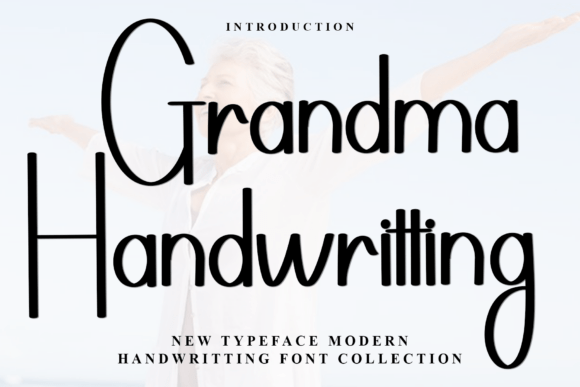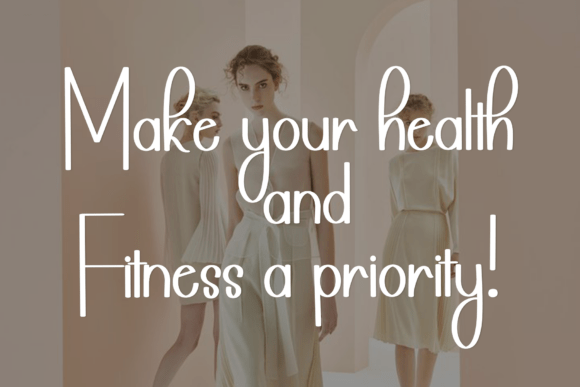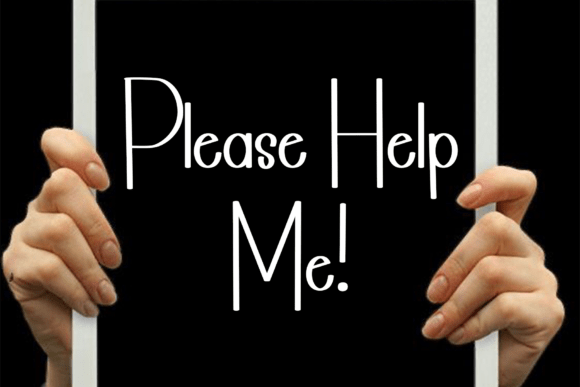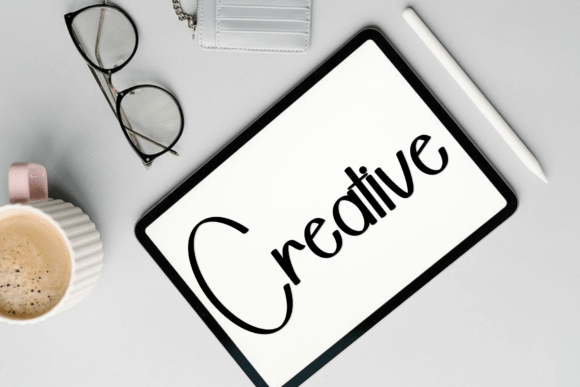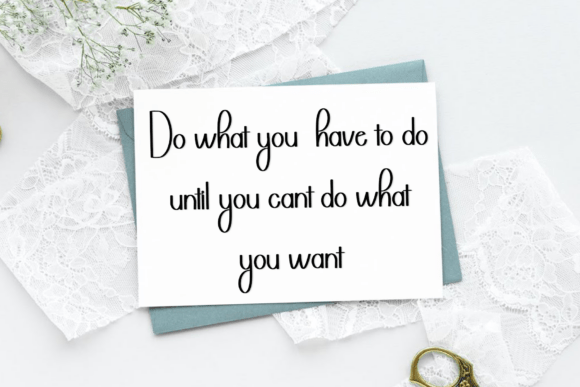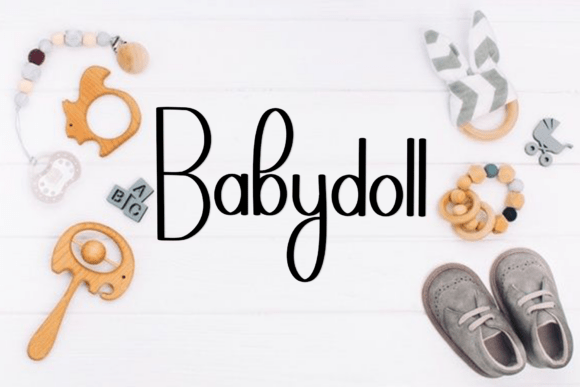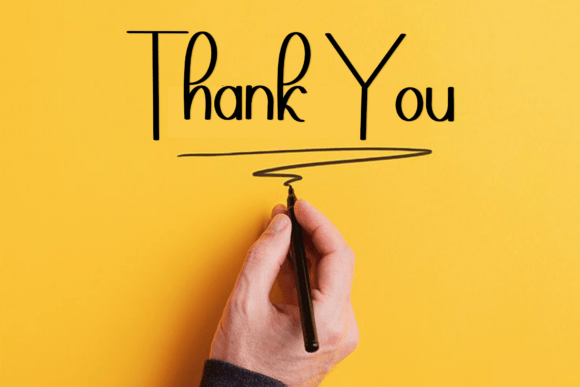
Creating with Love: The Magic of Grandma Handwritting Font
Remember the feel of scribbling in a journal, the sound of a pen gliding across paper, and the joy of creating something personal? For many of us, those moments evoke a sense of nostalgia and warmth. It’s this same feeling that inspired the creation of Grandma Handwritting Font, a charming script font designed to evoke a sense of authenticity and handmade charm.
This beautiful font is perfect for designers looking to add a touch of warmth and personality to their projects. With its flowing strokes and stylistic variation, Grandma Handwritting Font is ideal for crafting stationery, personalized products, and design projects that require a sentimental and approachable quality. Whether you’re working on a digital or print project, this natural, expressive typeface is sure to captivate your audience.
Grandma Handwriting Font Key Features
- Unique Handwritten Style: The font features a distinctive, cursive handwriting style reminiscent of a grandmother’s handwriting, perfect for adding a personal touch to designs.
- Character Set: The font includes a comprehensive set of characters, including uppercase and lowercase letters, numbers, and punctuation marks, as well as a range of ligatures and swashes.
- Weight and Style: The font is available in three weights: Light, Regular, and Bold, each with its own unique characteristics and flair.
- Multi-Language Support: The font supports a wide range of languages, including English, Spanish, French, German, Italian, and many others, making it a versatile choice for designers and typographers.
Grandma Handwritting Font Review
When I first saw the Grandma Handwritting Font, I was immediately charmed by its unique and whimsical feel. ✨ The font’s handwritten style, reminiscent of a grandmother’s love letter, adds a personal touch to any design project. It’s perfect for creating a warm and inviting atmosphere.
The font’s versatility is another aspect that works well in its favor. ✨ It can be used for a wide range of applications, from greeting cards to wedding invitations, and even for branding purposes. The font’s variations in letterforms and strokes give it a dynamic feel that makes it suitable for various design styles.
However, I do have a few concerns about the font’s limitations. ⚠️ Firstly, the font may not be suitable for body text, as its handwritten style can be difficult to read in large blocks of text. Additionally, the font’s consistency can be a bit inconsistent, with some letterforms looking more rough-around-the-edges than others.
Overall, I think the Grandma Handwritting Font is a great addition to any designer’s toolkit. While it may have some limitations, its unique charm and versatility make it a great choice for projects that require a personal touch.
- Perfect for creating a warm and inviting atmosphere
- Highly versatile and suitable for various design styles
- Great for branding and promotional materials
- May not be suitable for body text
- Consistency can be a bit inconsistent
Tips for Getting the Most Out of Grandma Handwriting Font
For a more authentic look, use the font in combination with distressed textures and vintage colors. Experiment with different font sizes and styles to create a unique visual effect. You can also use the font in combination with other fonts to create a layered look.
Grandma Handwriting Font is ideal for creating invitations, greeting cards, and other paper crafts. It’s also great for adding a personal touch to digital documents, such as party invitations or thank-you notes. The font’s vintage charm makes it perfect for creating a nostalgic or retro aesthetic.